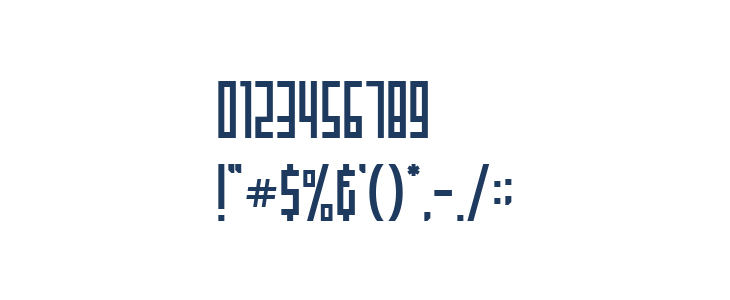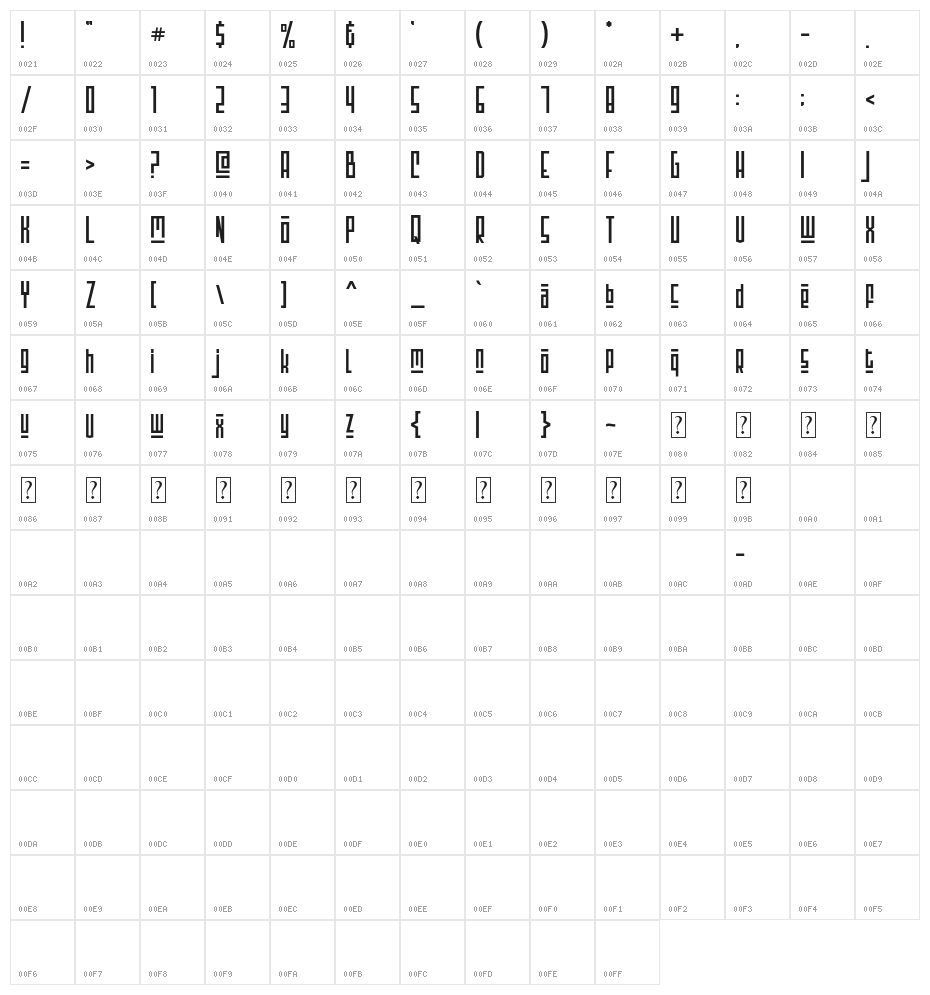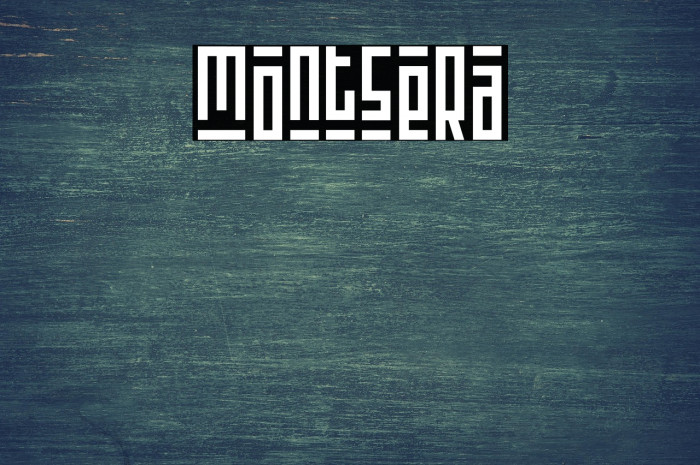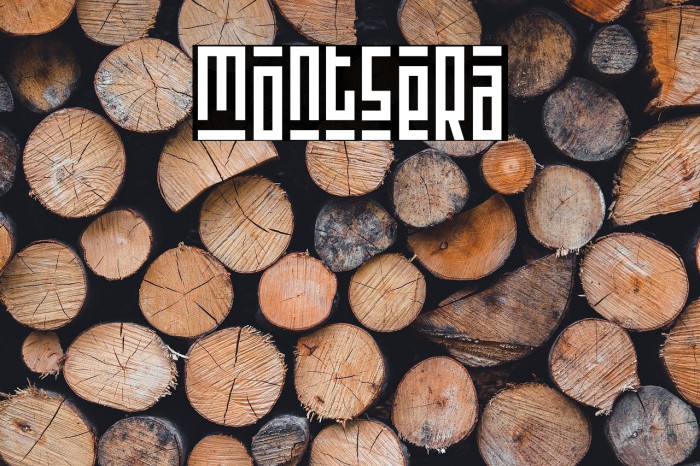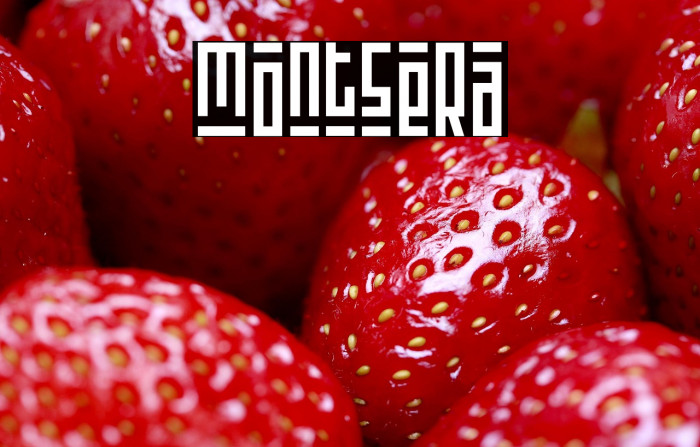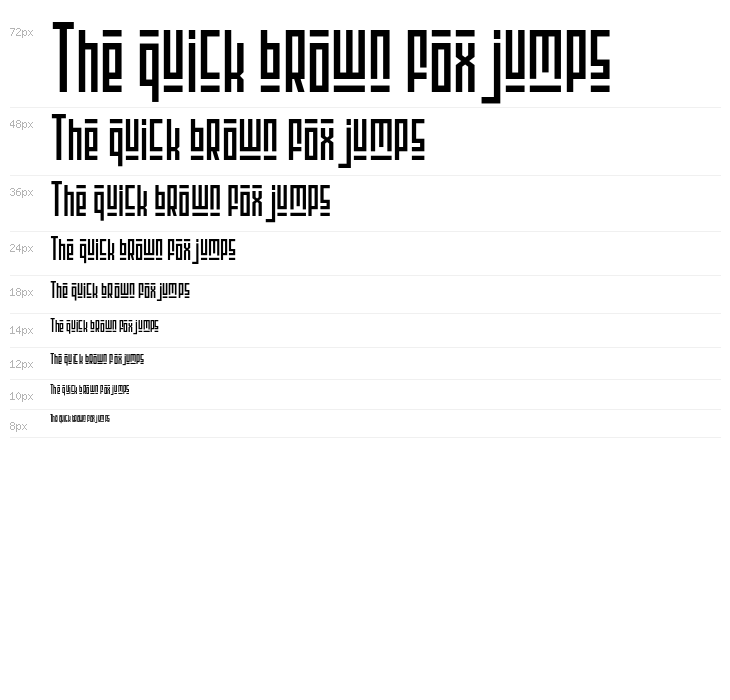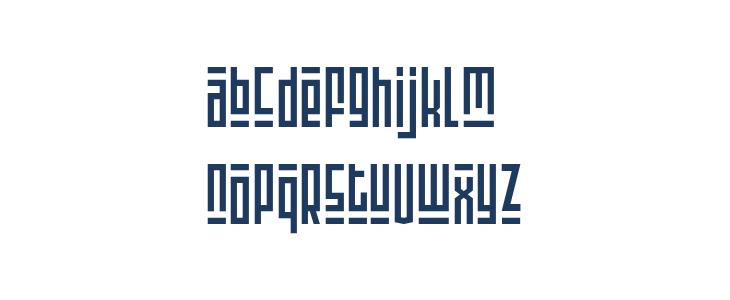
montsera Font
montsera Description
This font features a bold and geometric design with a distinct modern flair. The characters are constructed with sharp angles and straight lines, giving them a futuristic and industrial appearance. The uppercase letters are particularly striking, with a uniform height and width that create a cohesive and structured look. The lowercase letters maintain the same geometric style, offering a seamless transition between cases. Numbers and special characters are equally bold, ensuring consistency across all text elements. This font's unique style makes it ideal for projects that require a strong visual impact.